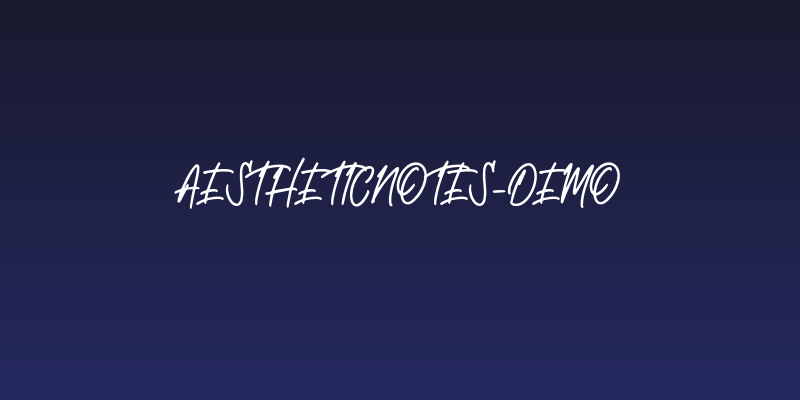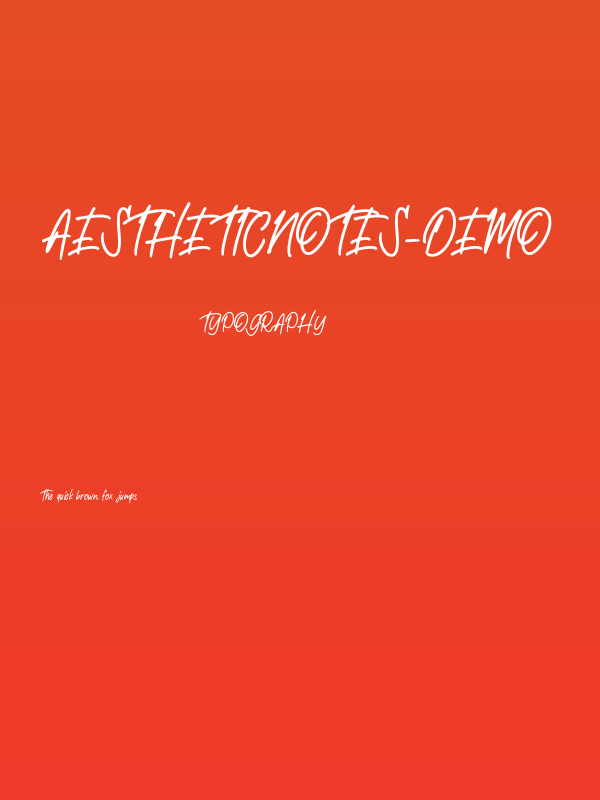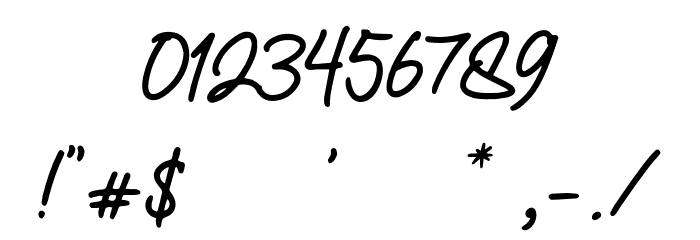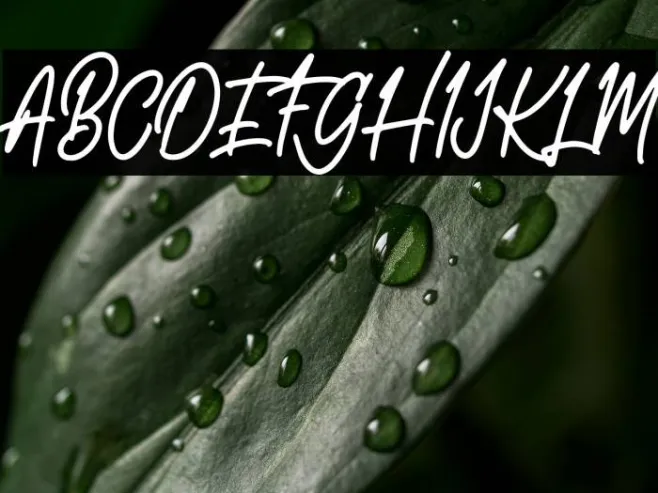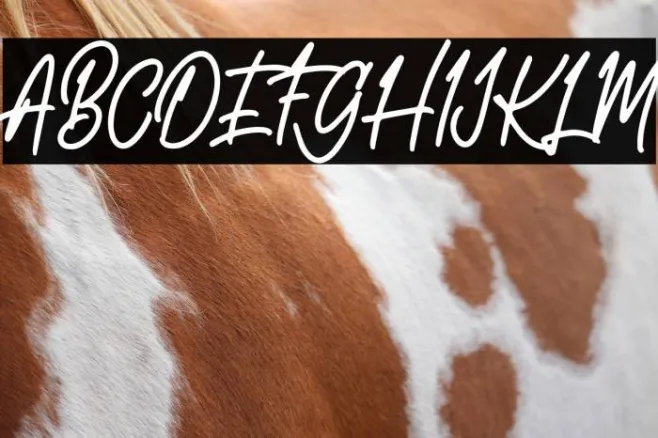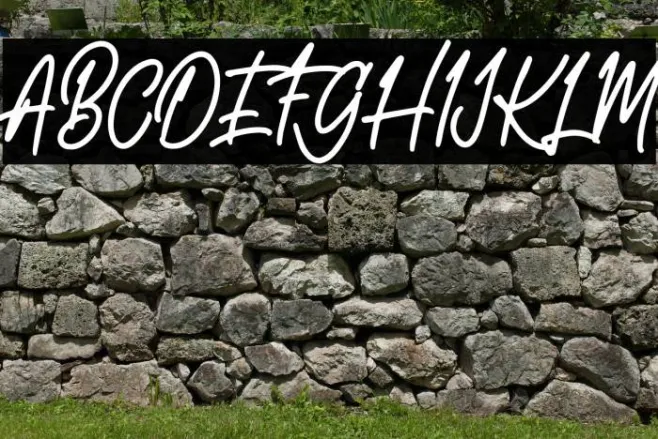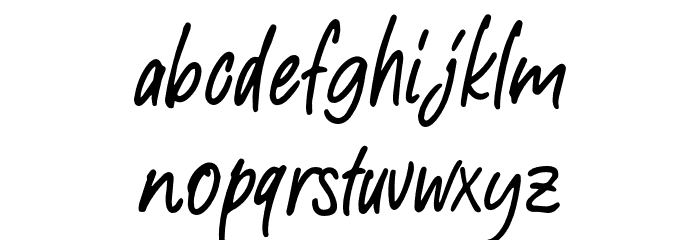
AestheticNotes-Demo Font
AestheticNotes-Demo Description
This font exudes a casual and artistic flair, characterized by its handwritten style that mimics natural penmanship. The letters are fluid and connected, giving it a personal and informal touch. The strokes vary in thickness, adding a dynamic and lively feel to the text. The uppercase letters are bold and prominent, while the lowercase letters maintain a consistent flow, enhancing readability. Numbers and special characters are crafted with the same attention to detail, ensuring a cohesive look across all elements. This font is perfect for projects that require a personal and creative touch, such as invitations, greeting cards, or artistic branding.
| Font Family | Aesthetic Notes |
| Overall Style | Casual, Artistic |
| Use Case | Headlines, Artistic projects, Personal notes |
| Proposed Projects | Ideal for invitations, greeting cards, artistic branding, and personal projects. |